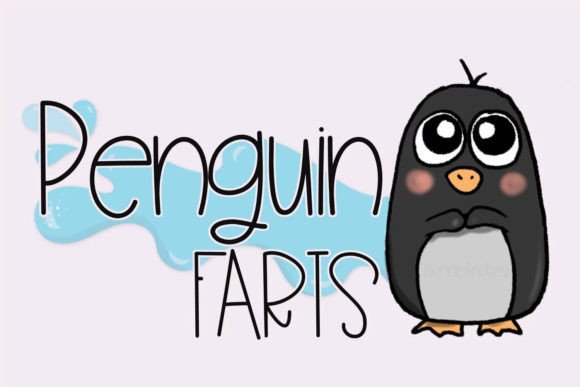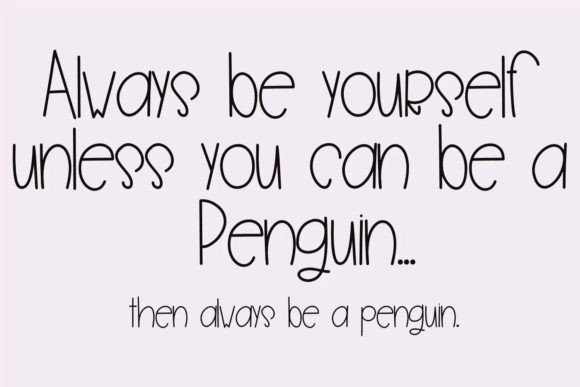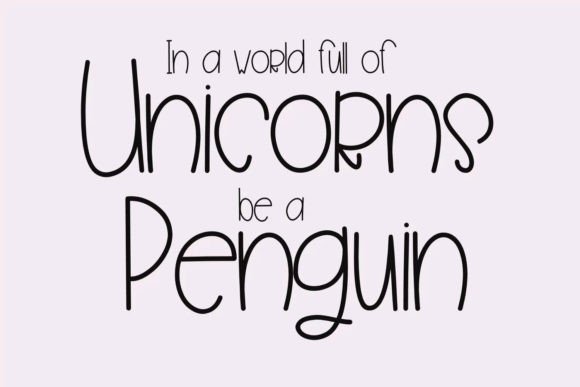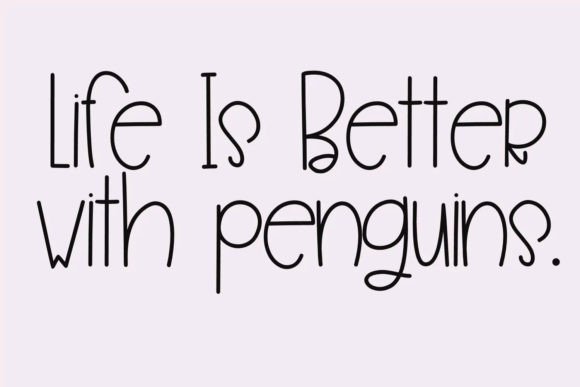
Penguin Farts Font
About Penguin Farts Font
“Introducing Penguin Farts, a whimsically named and fun handwritten font that adds a touch of playfulness to your projects. Penguin Farts is a thin print font with a little flair, making it a delightful choice for various creative endeavors. Notably, it comes with optimized nodes, making it an excellent option for easy cutting with precision. This font is perfect to inject a bit of fun into your next project, whether it’s on water bottles, T-shirts, notebooks, and more!
The thin print style of Penguin Farts offers a clean and modern look, while the added flair provides a unique touch that sets it apart. This makes it suitable for a range of projects where a playful yet legible font is desired.
The optimized nodes of Penguin Farts make it a practical choice for cutting machines. Whether you’re working on vinyl decals, paper crafts, or other materials, this feature ensures that you can achieve clean and precise cuts, resulting in professional-looking outcomes for your projects.
Consider using Penguin Farts on a variety of items to add a little fun and personality. From water bottles and T-shirts to notebooks and more, this font brings a lighthearted charm that can elevate the visual appeal of your creations.
In summary, Penguin Farts is not just a font; it’s a playful and practical design tool. With its thin print style, added flair, and optimized nodes for cutting, Penguin Farts is ready to bring a bit of fun to your creative projects. Try it on your next endeavor and let Penguin Farts add that whimsical touch you’ve been looking for!”